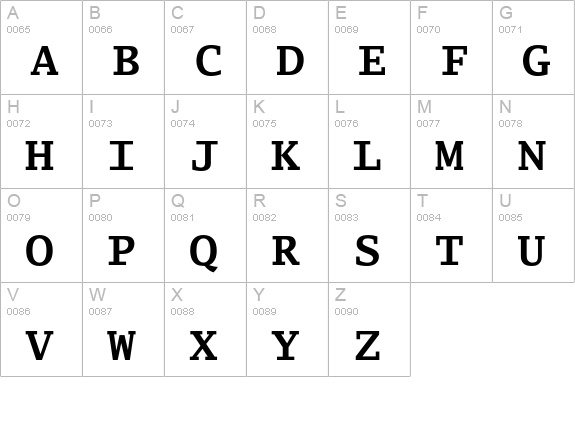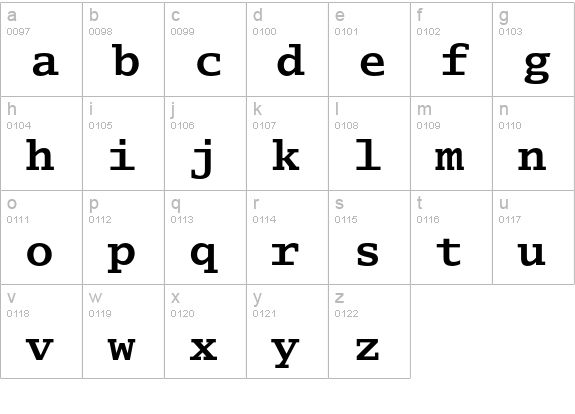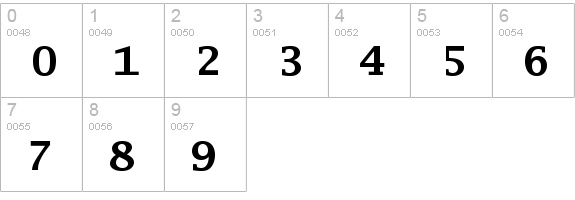
Lucida Typewriter Bold is a strong, high-contrast variant in the Lucida typeface family \xE2\x80\x94 well suited to headlines, attention-grabbing titles, and strong calls-to-action.
Lucida Typewriter Bold font is a classic and versatile typeface that exudes a sense of professionalism and sophistication. Its bold and distinctive characters make it ideal for creating eye-catching headlines, titles, and text that demand attention. With its clean lines and timeless appeal, Lucida Typewriter Bold font is a popular choice for a wide range of design projects. Best of all, Lucida Typewriter Bold font is available for free download at FontsMarket.com. This means you can easily access this high-quality font without any cost, making it a valuable resource for designers, writers, and anyone looking to enhance their projects with a touch of elegance and style. Download Lucida Typewriter Bold font today and add a touch of sophistication to your designs!